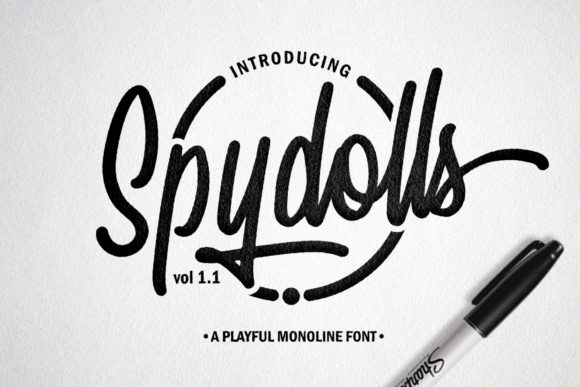
Enter the world of Spydolls Font, a creation by semuthitam, where elegance meets playfulness. This captivating script font, inspired by the bold strokes of a marker pen, is ready to transform your designs into works of art.
Journey through the limitless possibilities of Spydolls. Its monoline structure dances across digital canvases, leaving a trail of charm and sophistication. Effortlessly create logos that exude personality, t-shirts that make statements, branding that resonates, prints that capture attention, and more.
Unleash your imagination with Spydolls, the font that breathes life into your creative endeavors. Its playful nature invites you to explore new horizons, while its monoline grace adds a touch of refinement.
Picture your logo adorned with the Spydolls script, its every curve and swirl speaking volumes about your brand's unique identity. Envision your t-shirts adorned with Spydolls, becoming canvases for self-expression and style. Imagine your branding materials infused with Spydolls, radiating a charm that captivates and engages.
Spydolls is more than just a font; it's an experience. It's a journey into the realm of creativity, where boundaries dissolve, and imagination reigns supreme. Its monoline script becomes your magic wand, transforming ordinary designs into extraordinary masterpieces.
Embrace the transformative power of Spydolls. Let its playful spirit ignite your passion, its sophistication elevate your designs, and its versatility unlock a world of creative possibilities.